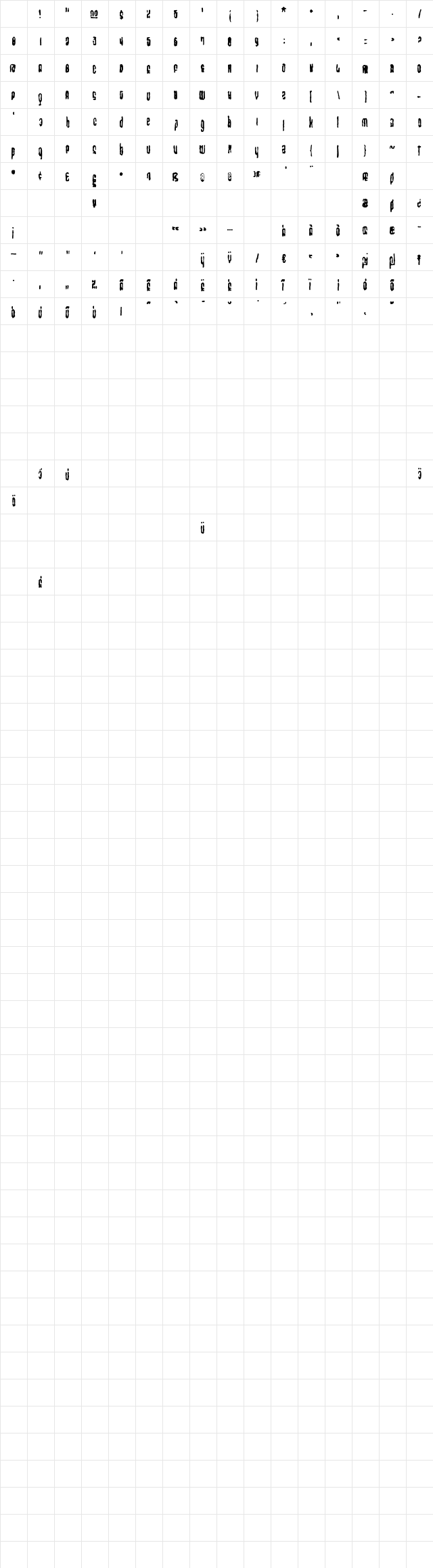
Complete Saturate Organic glyph index. Displaying only characters natively supported by Saturate Organic font.
Saturate is a composed and adaptable typeface that performs quietly and consistently across a wide range of design contexts.